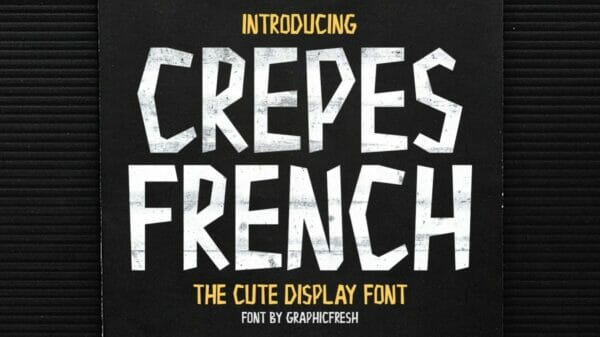
Crepes – The Cute Display Font
Now we made a simple and cute font, perfect for those of you who want to write a note with cool ink strokes. Crepes is name from french food.
Crepes – A funny, cute character! it’s perfect for logos, name card, magazine layouts, invitations, headers, or even large-scale artwork.